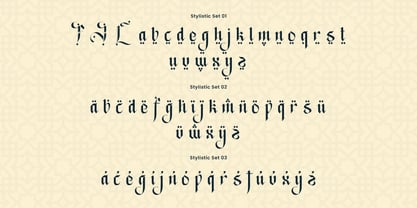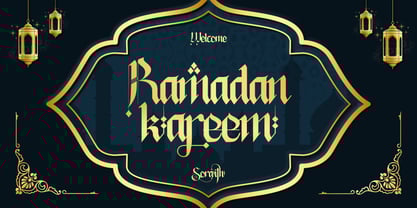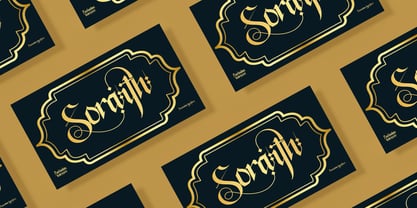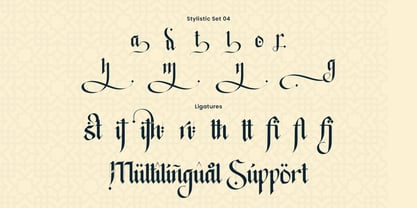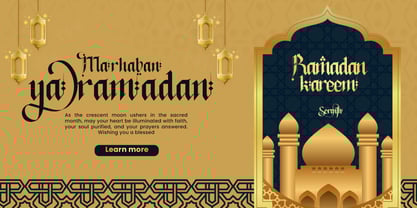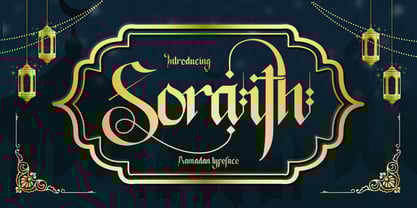
Soraith
by Inviline
The Soraith Font Family was designed by Virgiawan Listanto and published by Inviline. Soraith contains 1 styles.
Experience the artistry of Turkish calligraphy. Intricate designs and elegant script capture the beauty of the Turkish language and culture. Perfect for adding a touch of sophistication to your home or as a unique gift. High-quality print, ready to frame.
Designers: Virgiawan Listanto
Publisher: Inviline
Foundry: Inviline
Design Owner: Inviline